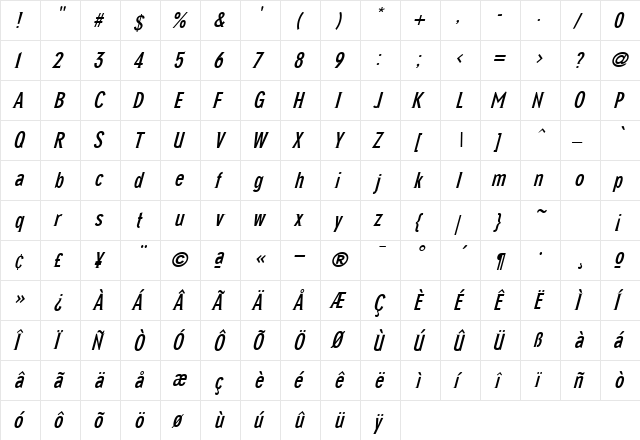
NewGlobal Italic
Design Context for NewGlobal Typeface
NewGlobal offers clean, dependable letterforms without strong stylistic allegiance, making it a practical choice for designers who need flexibility. The dynamic lean of this cut emphasises speed and emphasis in any layout.
Pro Tip: Use NewGlobal for emphasis, pull quotes, and subheadings where its slanted energy can add rhythm to the layout.